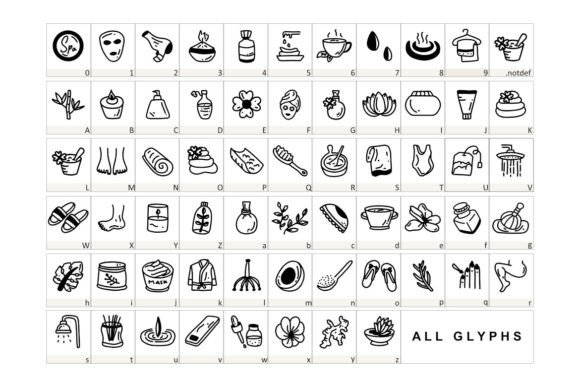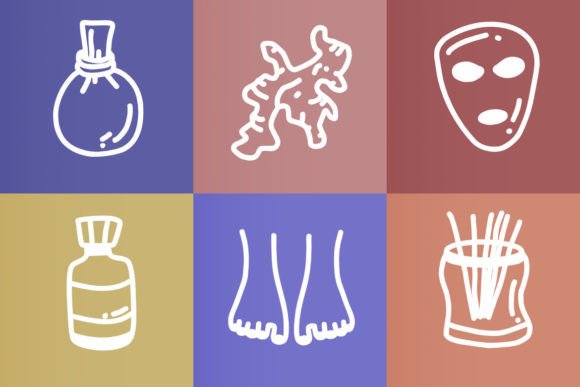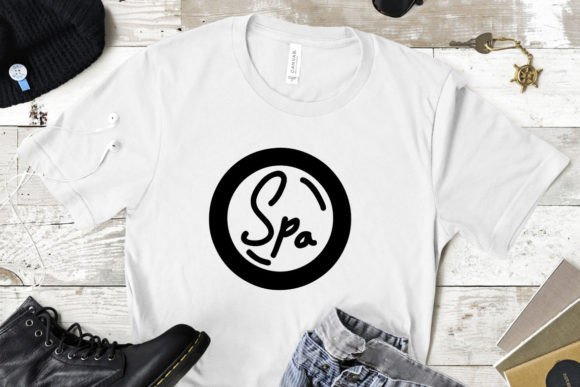
Introducing Brilliance Spa Font: The Perfect Dingbats Font for Your Creative Projects
Are you a designer, crafter, or DIY enthusiast looking for a unique and versatile font to elevate your creative projects? Look no further than Brilliance Spa Font, a delightful dingbats font that is perfect for a wide range of applications. In this article, we’ll explore the features and benefits of Brilliance Spa Font, and show you how it can add a touch of brilliance to your designs.
What is Brilliance Spa Font?
Brilliance Spa Font is a carefully crafted dingbats font that is designed to add a touch of cuteness and whimsy to your designs. With its unique and intricate glyphs, this font is perfect for creating visually appealing graphics, illustrations, and text-based designs. Whether you’re working on a sticker, poster, t-shirt, card, or apparel graphic, Brilliance Spa Font is sure to impress.
Key Features of Brilliance Spa Font
- Cute and Useful Glyphs: Brilliance Spa Font features a wide range of adorable glyphs that are perfect for adding a touch of personality to your designs.
- Versatile and Flexible: This font is suitable for a wide range of projects, from stickers and posters to t-shirts and apparel graphics.
- Easily Customizable: Brilliance Spa Font is easy to customize, allowing you to adjust the font size, color, and style to suit your design needs.
- High-Quality Design: The font is carefully crafted with attention to detail, ensuring a high-quality design that will impress your audience.
Benefits of Using Brilliance Spa Font
So, why choose Brilliance Spa Font for your creative projects? Here are just a few benefits of using this amazing dingbats font:
- Adds Visual Interest: Brilliance Spa Font adds a touch of visual interest to your designs, making them more engaging and attention-grabbing.
- Enhances Creativity: With its unique glyphs and versatility, Brilliance Spa Font inspires creativity and encourages you to think outside the box.
- Saves Time: This font is easy to use and customize, saving you time and effort in the design process.
- Perfect for DIY Projects: Brilliance Spa Font is ideal for DIY enthusiasts and crafters, allowing you to create professional-looking designs without extensive design experience.
Project Ideas Using Brilliance Spa Font
Brilliance Spa Font is perfect for a wide range of creative projects. Here are a few ideas to get you started:
- Stickers and Labels: Use Brilliance Spa Font to create cute and colorful stickers and labels for your products or gifts.
- Posters and Flyers: Create eye-catching posters and flyers for events, promotions, or announcements.
- T-Shirts and Apparel: Design unique and stylish t-shirts, hoodies, and other apparel items using Brilliance Spa Font.
- Cards and Invitations: Add a touch of elegance and sophistication to your cards and invitations with this beautiful dingbats font.
| Font Name | Brilliance Spa Font |
| Author | YandiDesigns |
In conclusion, Brilliance Spa Font is a versatile and delightful dingbats font that is perfect for a wide range of creative projects. With its cute and useful glyphs, versatility, and ease of use, this font is sure to become a favorite among designers, crafters, and DIY enthusiasts. So why wait? Download Brilliance Spa Font today and add a touch of brilliance to your designs!